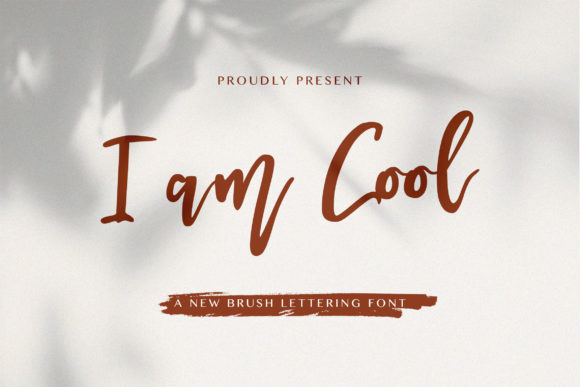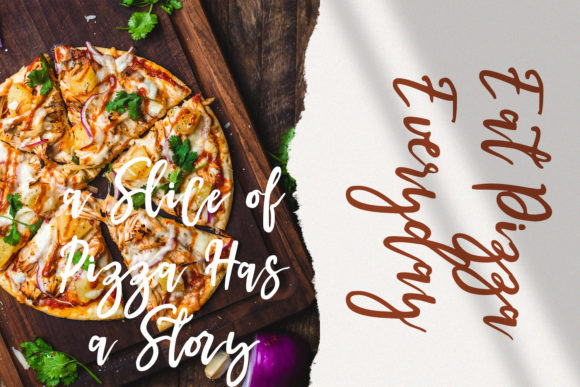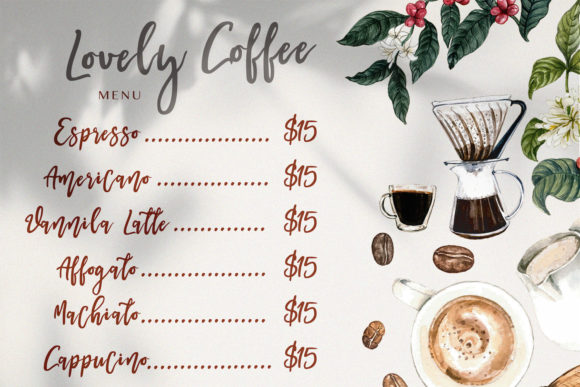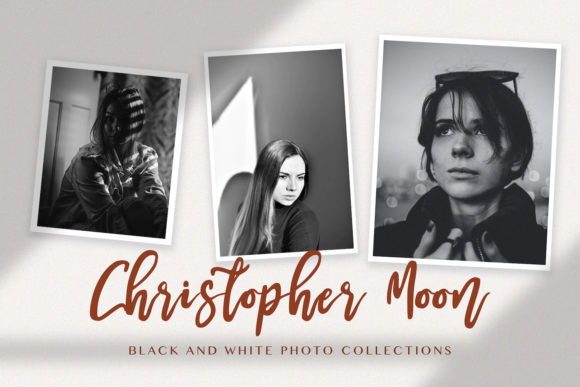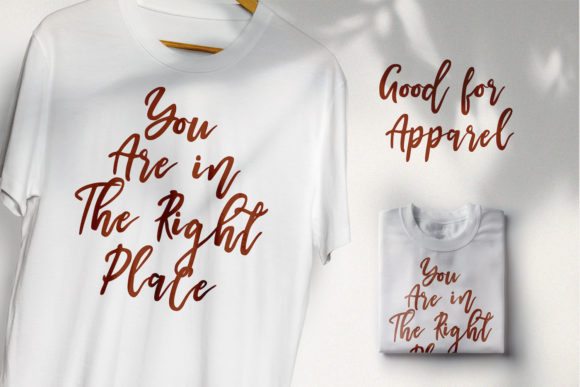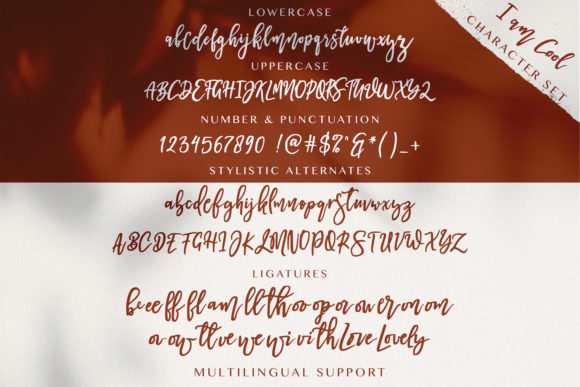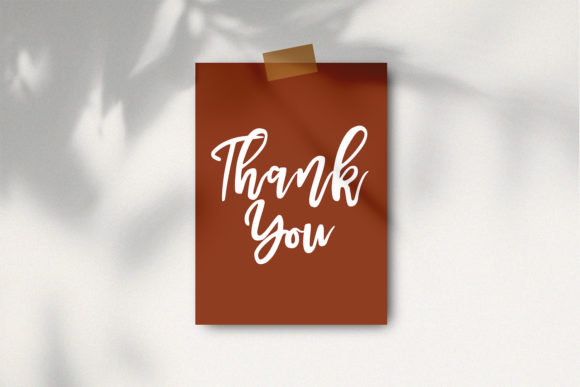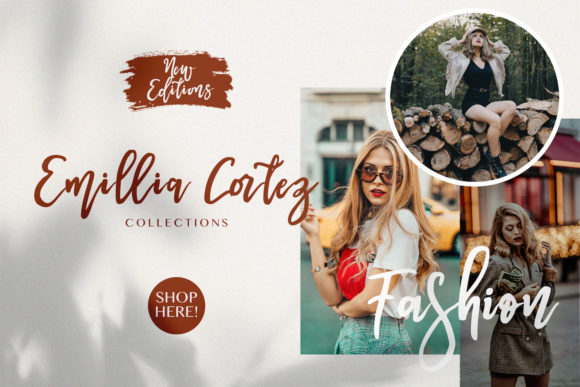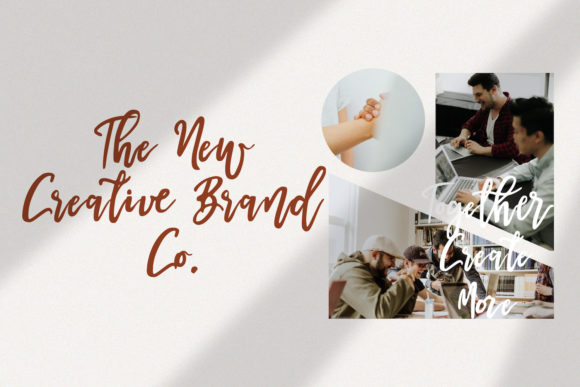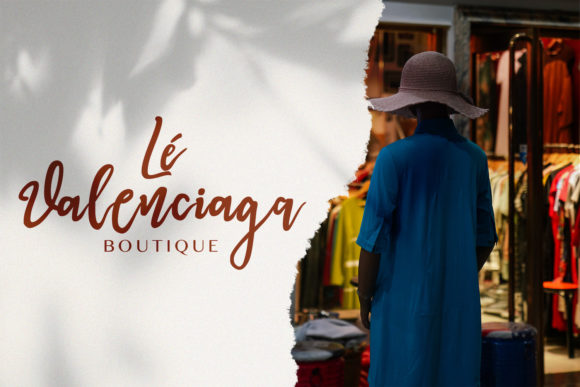
I Am Cool Font
About I Am Cool Font
I am Cool is a relaxed script font with hand-brushed style. It will elevate a wide range of design projects to the highest level, be it branding, headings, wedding designs, invitations, signatures, logos, labels, and much more!